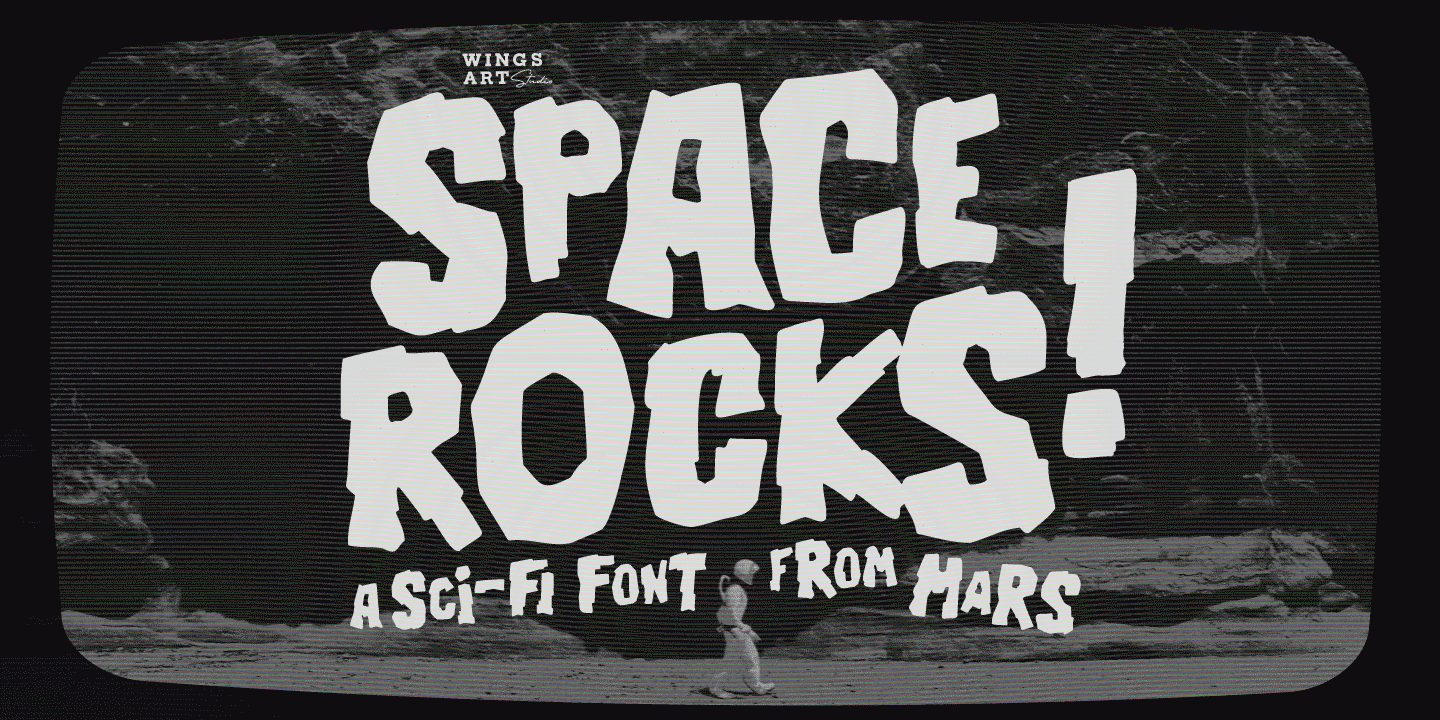
Space Rocks Font is perfect for cosmic design applications including science fiction movie posters, space-themed gaming interfaces, astronomy club branding, planetarium materials, rock band merchandise, cosmic event graphics, space exploration campaigns, and stellar advertising projects that require typography with otherworldly character and celestial energy.
What makes Space Rocks Font exciting is its incredible ability to capture the raw power and cosmic wonder of outer space through dynamically crafted letterforms that evoke meteor impacts and stellar explosions. This electrifying typeface features rugged, asteroid-like characteristics with cosmic textures and space-age details that instantly communicate adventure, cosmic power, and interstellar excitement. The font's cosmic personality and stellar appeal make it perfect for brands seeking to establish connection with space enthusiasts and communicate values of exploration, cosmic adventure, and boundless imagination.
Space Rocks Font family includes various weights and cosmic variations designed for comprehensive space-themed communication. The family typically features regular, bold, and impact weights, complemented by textured versions, stellar alternates, and extended character sets with cosmic symbols that enhance its otherworldly aesthetic and provide maximum galactic impact.
Space-themed designers consistently select Space Rocks Font Free Download for projects requiring typography that embodies cosmic adventure and stellar excitement. This powerful typeface delivers exceptional visual impact across science fiction applications, from digital space gaming platforms to large-scale astronomical displays, ensuring consistent brand messaging with unmistakable cosmic authority and interstellar appeal. The font's dynamically crafted letterforms maintain excellent readability while delivering the explosive presence that space brands demand. Cosmic creative agencies worldwide rely on this stellar typeface to communicate brand values of exploration, cosmic wonder, and infinite possibilities. Launch your brand into the cosmos with Space Rocks Font and create compelling visual communications that resonate with audiences who appreciate the infinite wonder of space, cosmic adventure, and the explosive beauty of stellar phenomena.